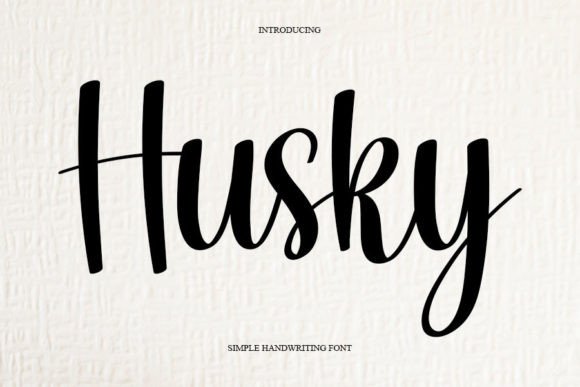
Introducing the Husky Font - the perfect choice for anyone looking for the best font for paper cutting! Created by the talented designers at Harlek Studio, this beautiful script font is sure to capture your attention with its simple, yet elegant design.
The Husky Font is more than just a font - it's a work of art. Its handcrafted style makes it ideal for a wide range of applications, from greeting cards and invitations to branding and packaging. With its natural, flowing lines, the Husky Font is the perfect way to add a touch of personality and warmth to any project.
But what really sets the Husky Font apart is its versatility. Whether you're designing a wedding invitation or a business card, this font is guaranteed to elevate your project to the next level. Its bold, eye-catching look is perfect for headlines, while its subtle curves and strokes make it ideal for body text as well.
And that's not all - the Husky Font is also incredibly easy to use. With its clean lines and effortless style, it's the perfect choice for anyone looking to create a professional-looking design in no time. Plus, its wide spectrum of applications makes it perfect for both beginners and seasoned professionals alike.